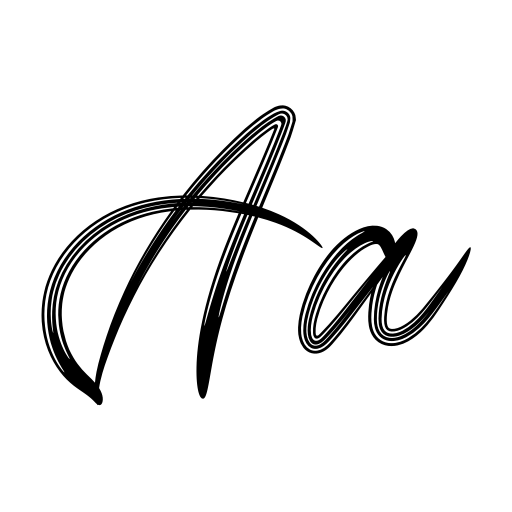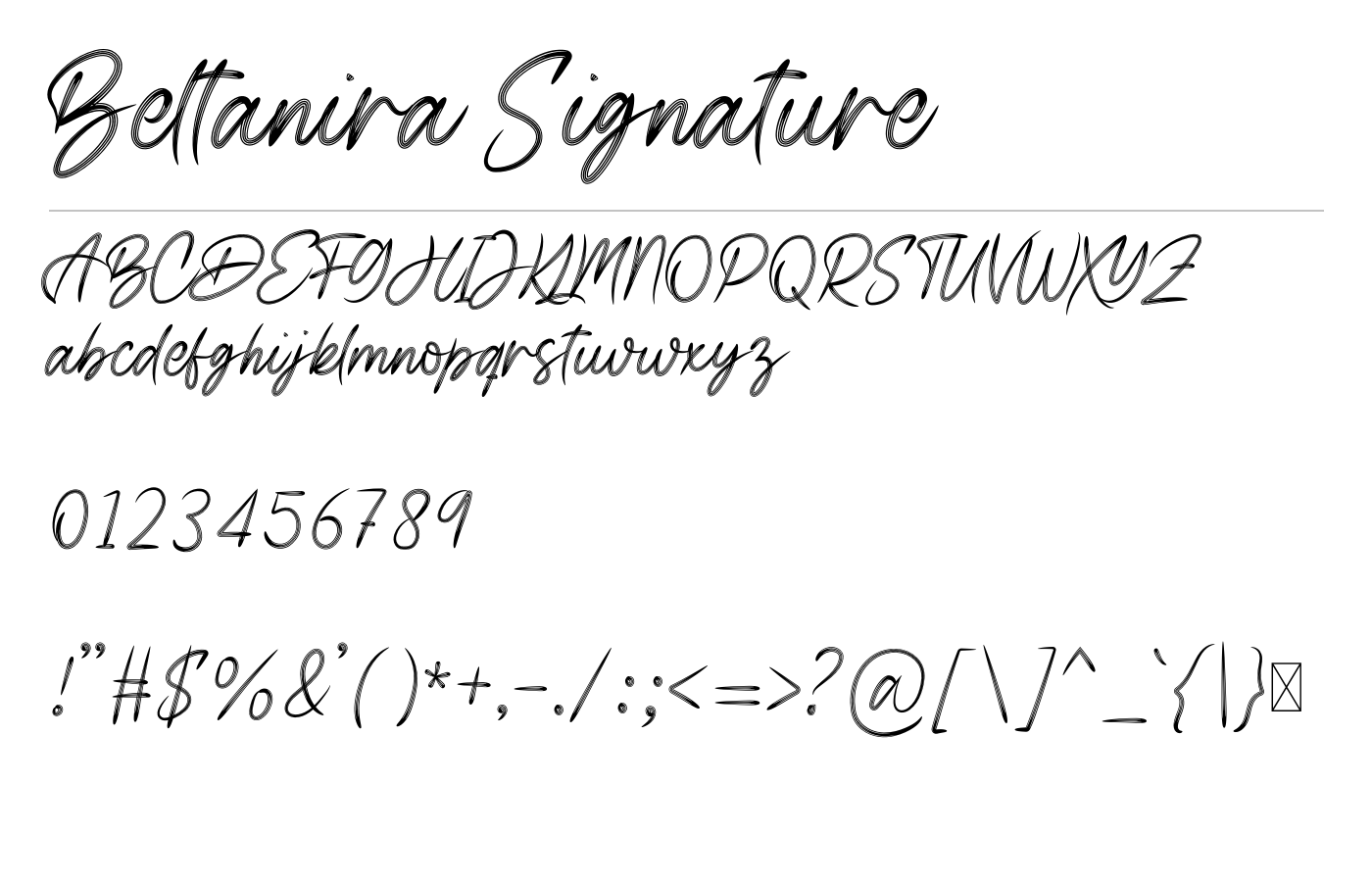
Beltanira Signature Font is a stylish and elegant script typeface that mimics natural handwritten calligraphy with lively, flowing strokes and a casual yet refined feel. Its slender, slightly textured lines and airy letterforms create a personalized, sophisticated look ideal for fashion, branding, invitations, and logos. This font works beautifully in designs where a touch of authenticity and elegance is desired, making it perfect for creative and luxury projects.
Beltanira Signature Font
About Beltanira Signature Font
| Font family | Beltanira Signature Font |